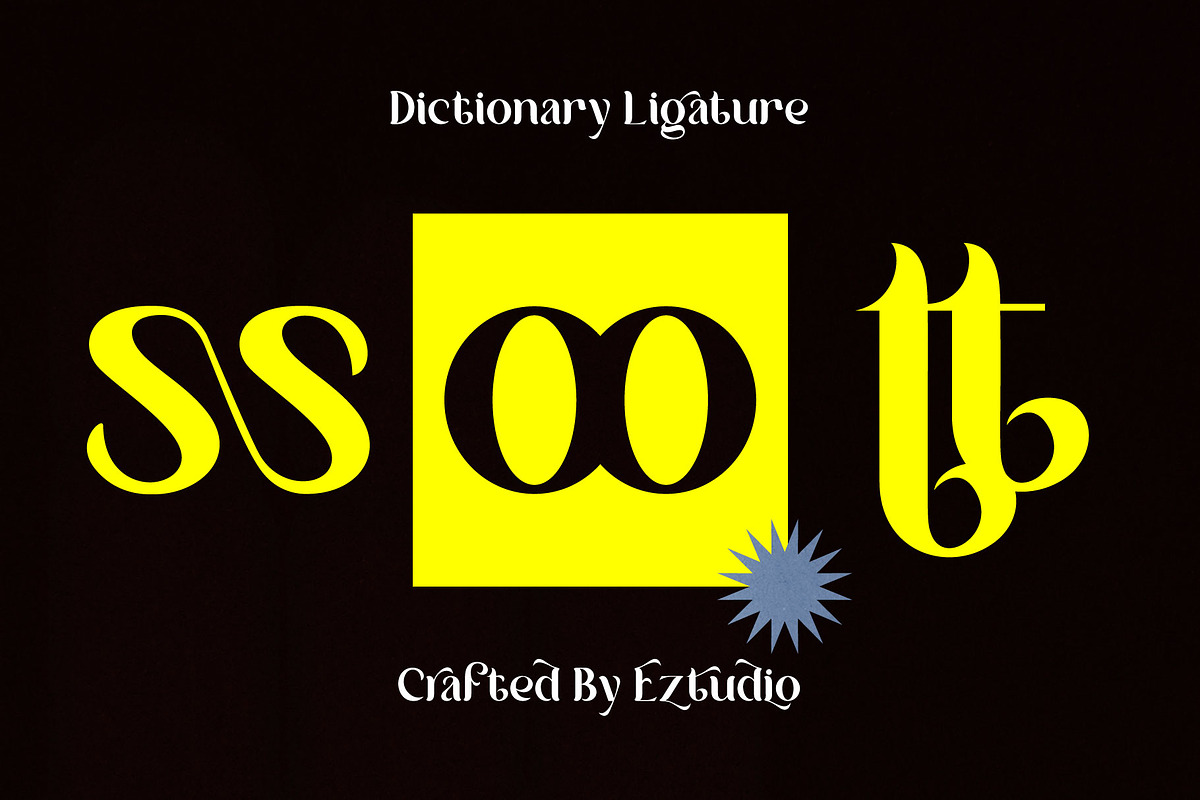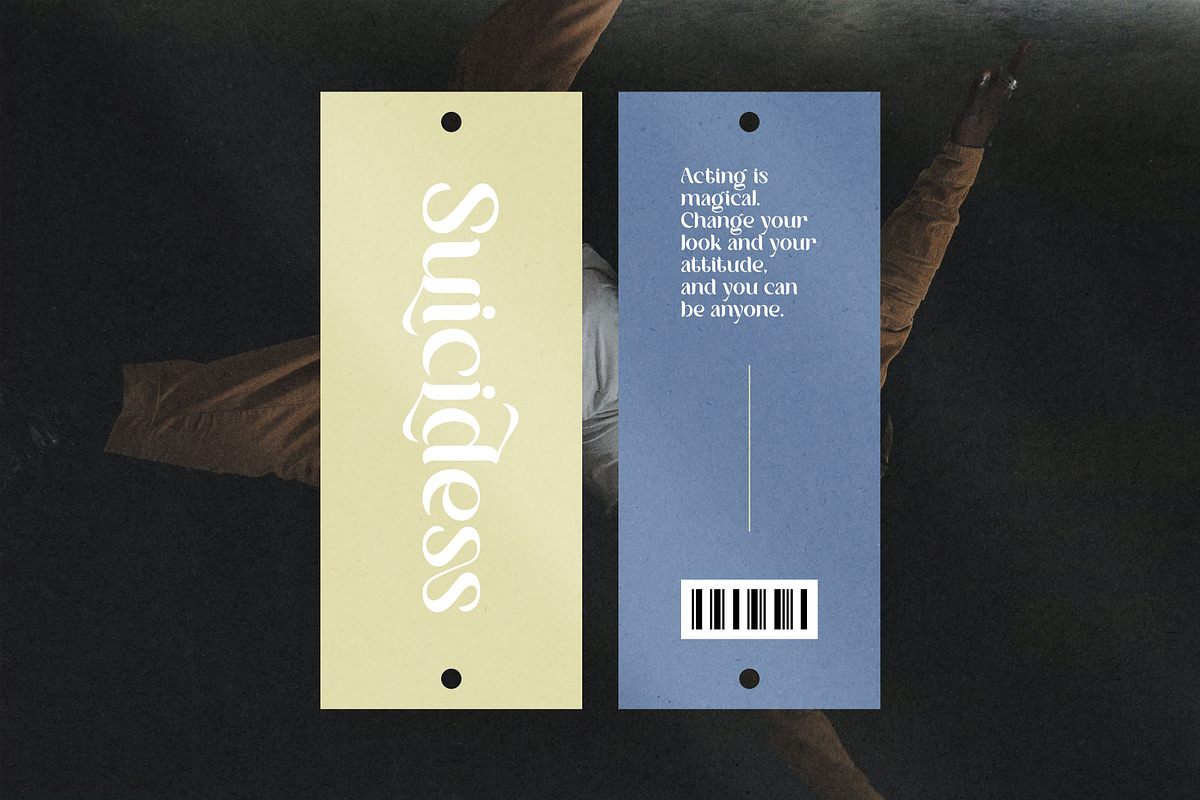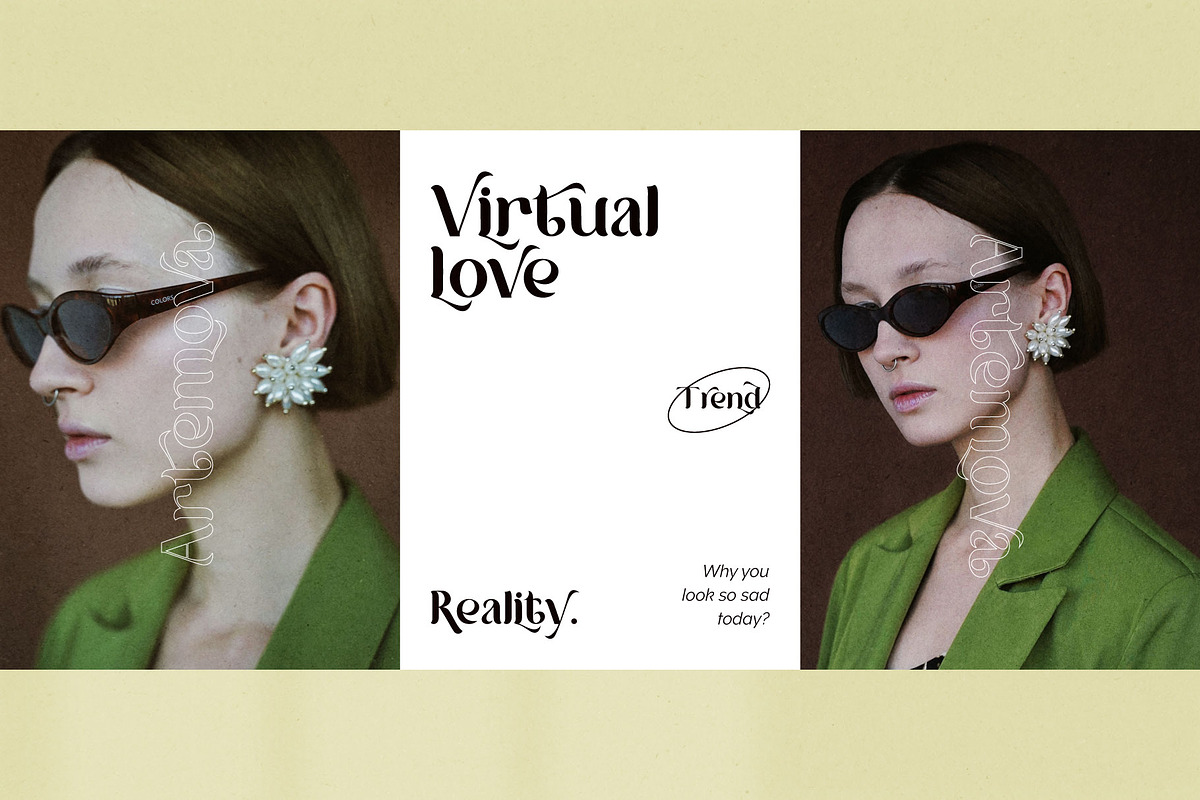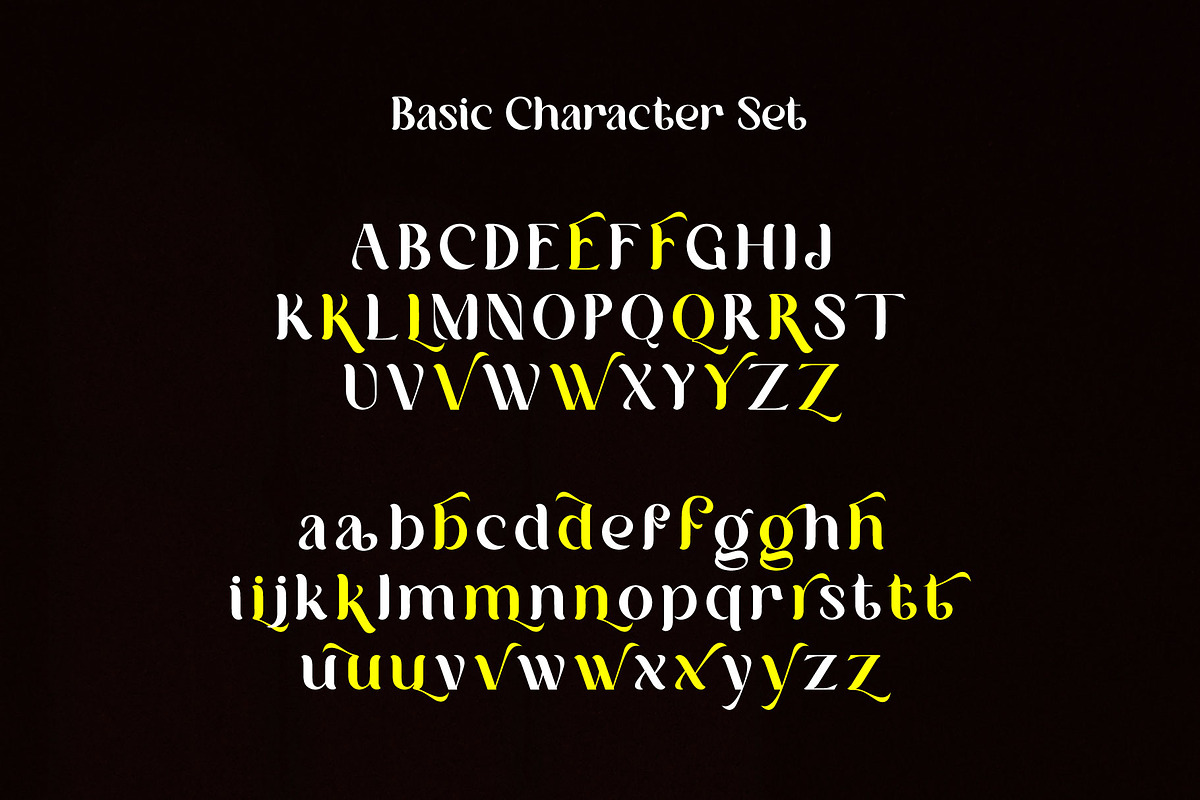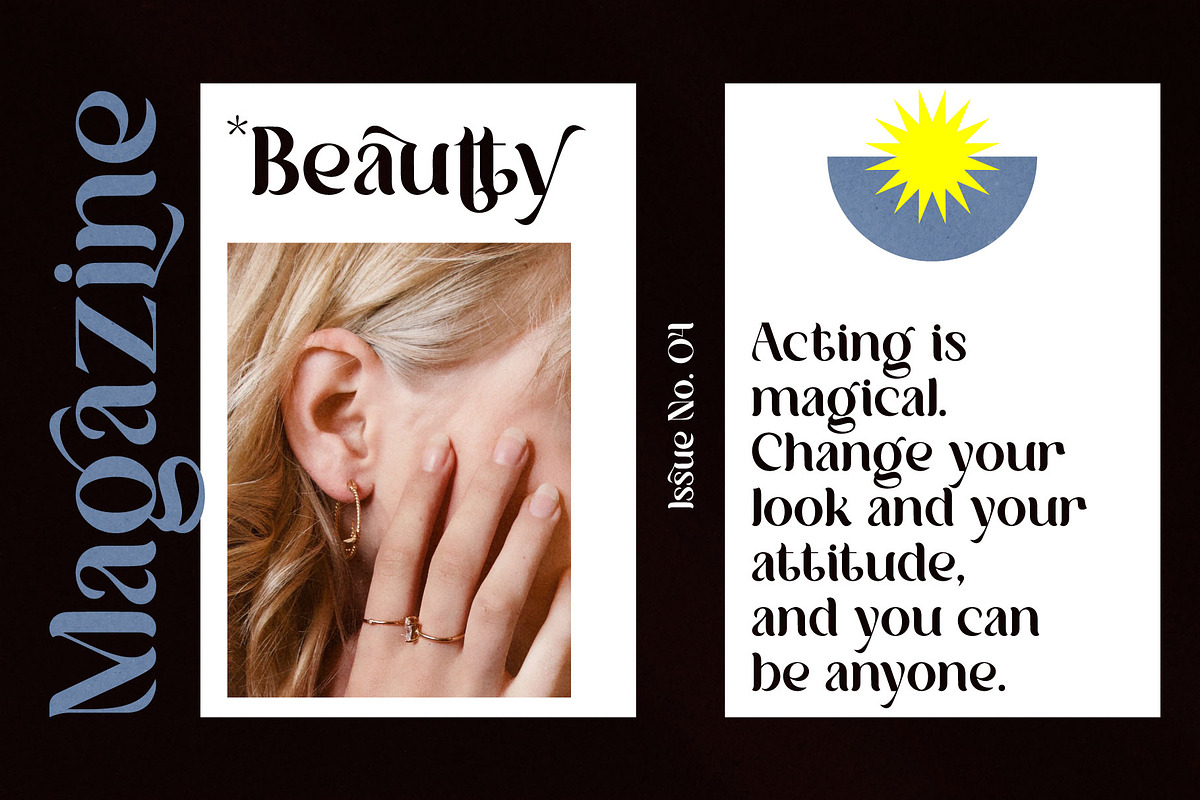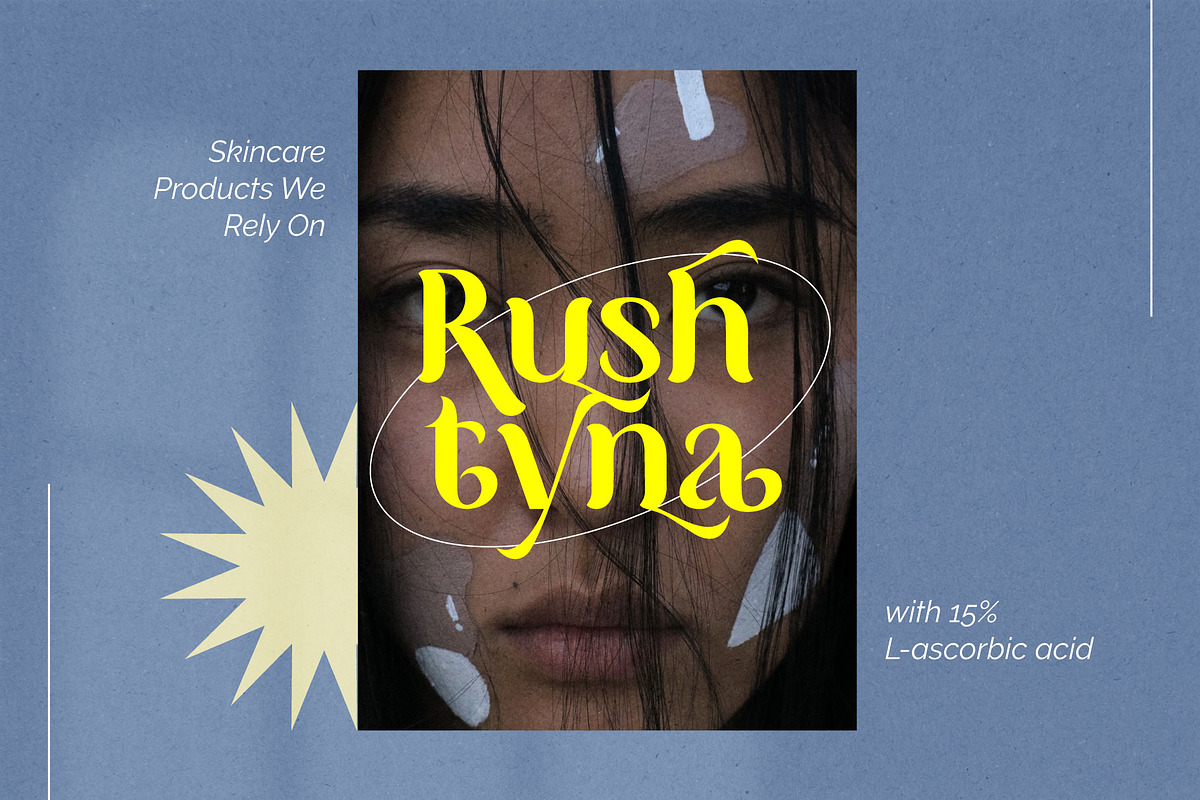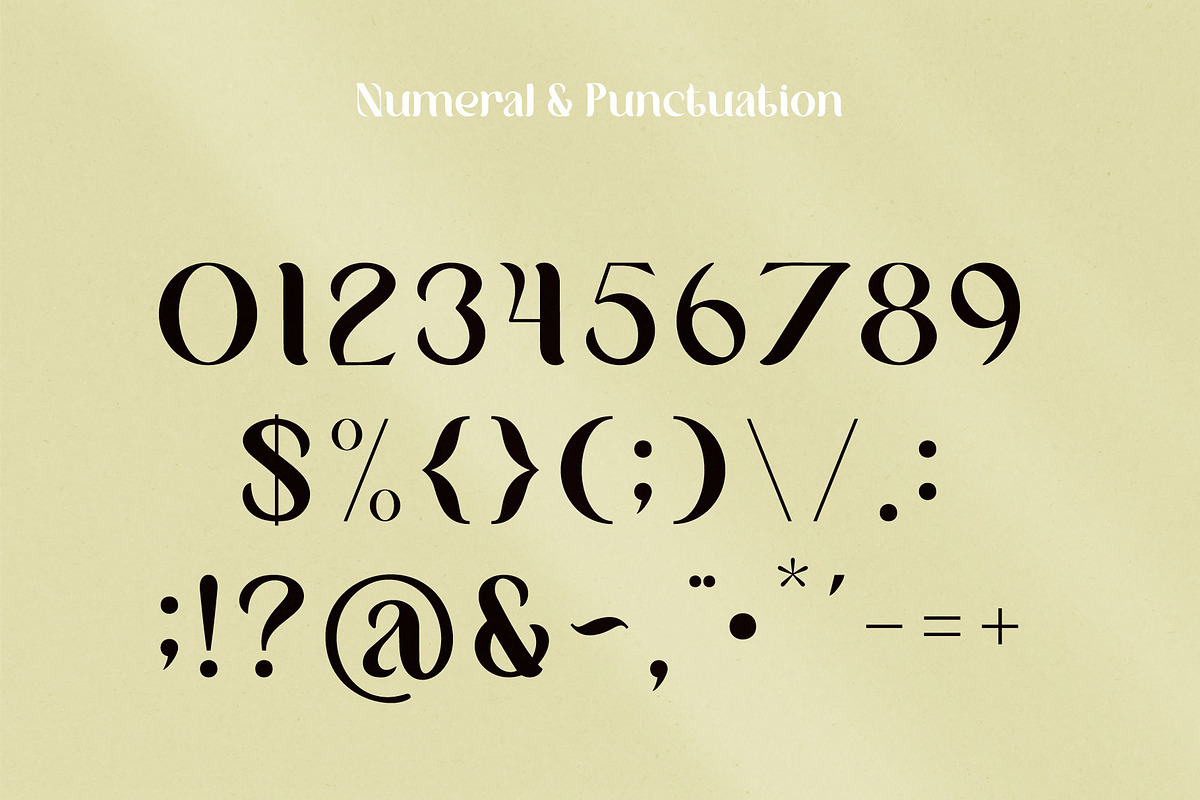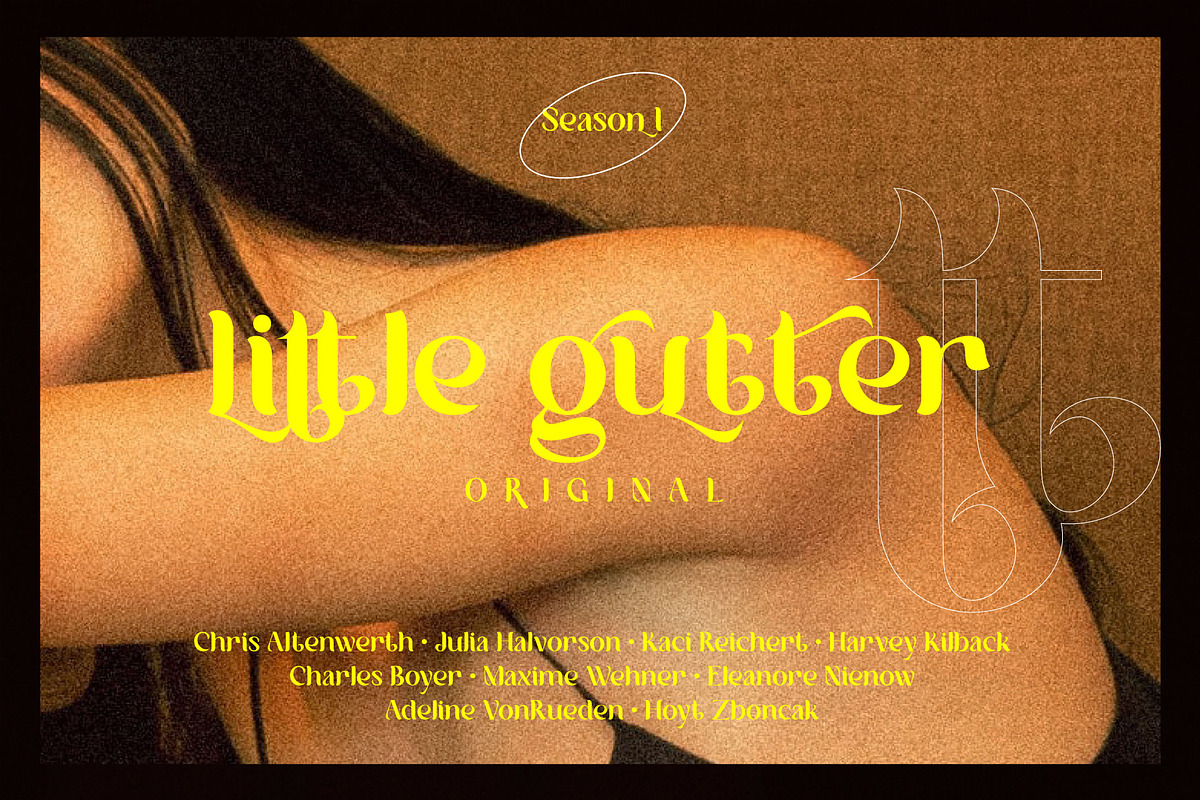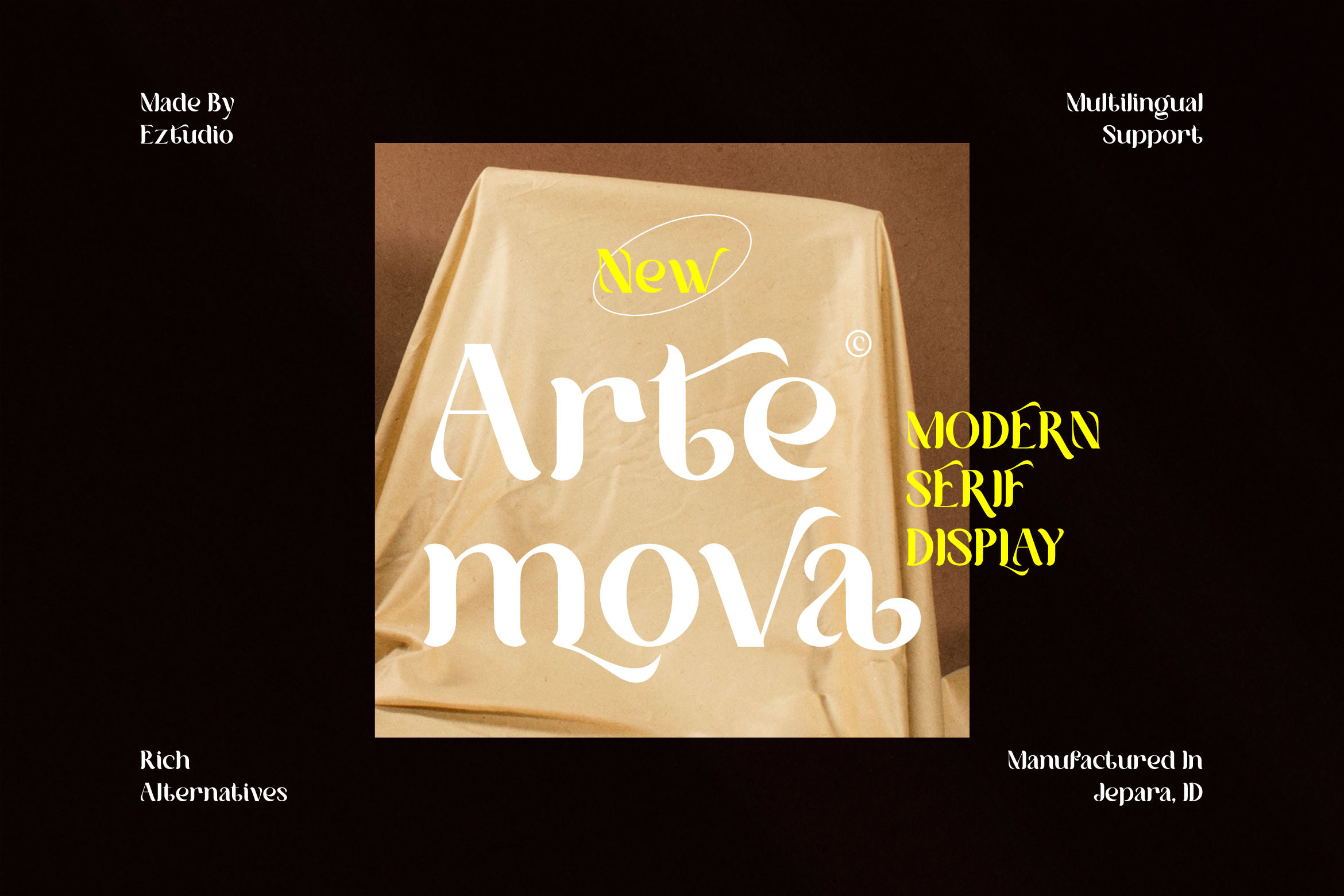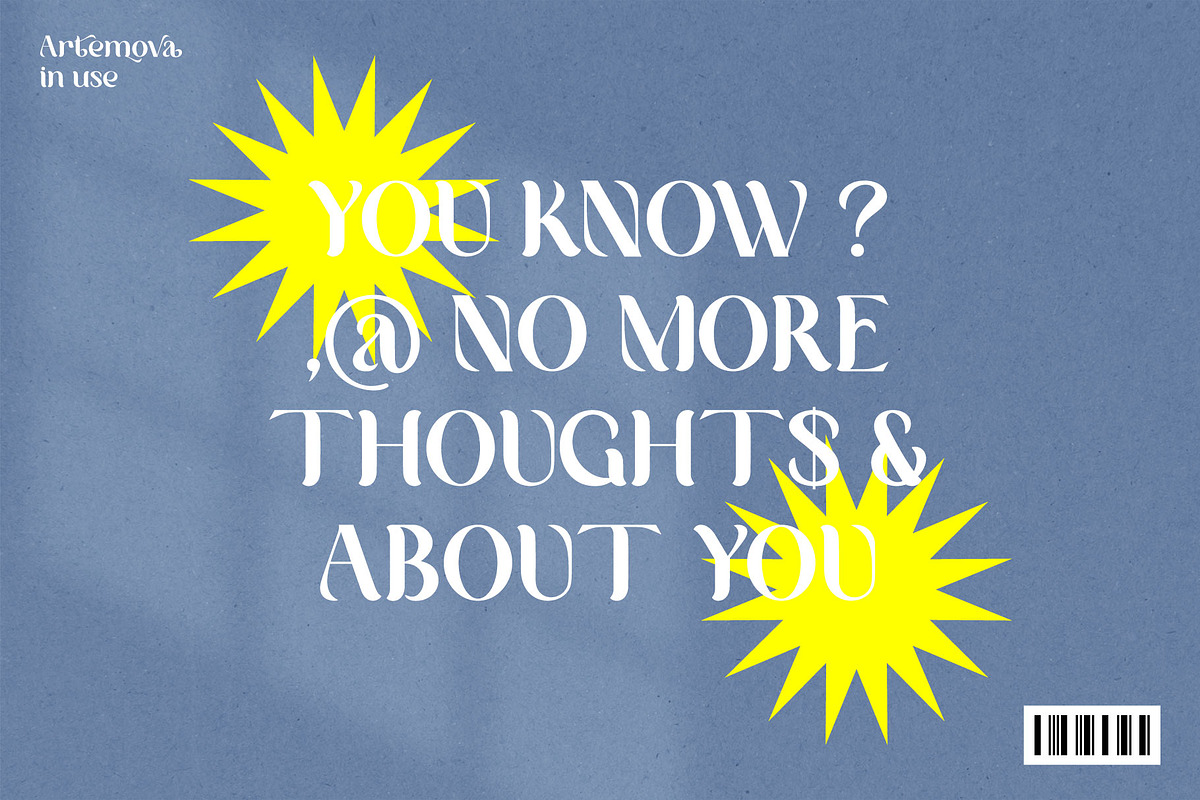
Artemova - Modern Serif Font
Artemova is a modern and elegant serif font. It is defined by smooth curves and is perfect for fashion branding or editorial designs. Add it confidently to your projects, and you will love the results.
The Artemova font includes:
- Uppercase Letters
- Lowercase Letters
- Special Characters
- Multilingual Glyphs